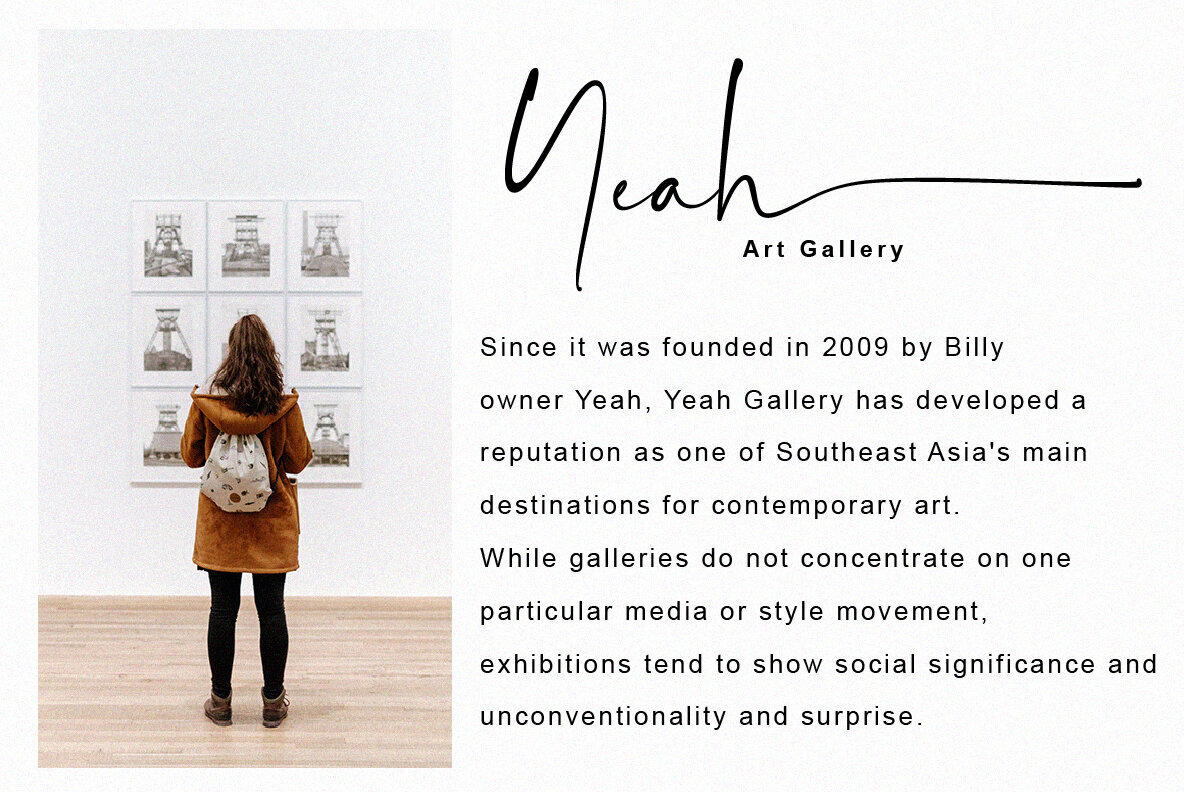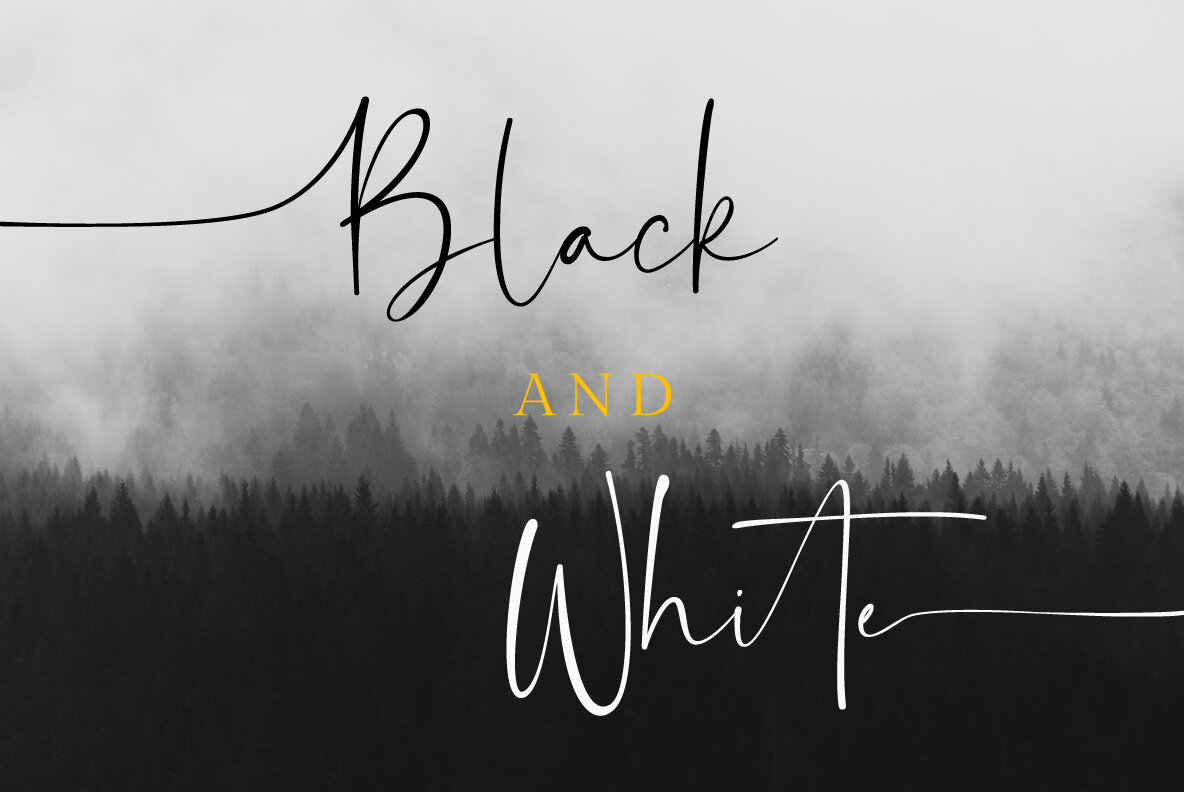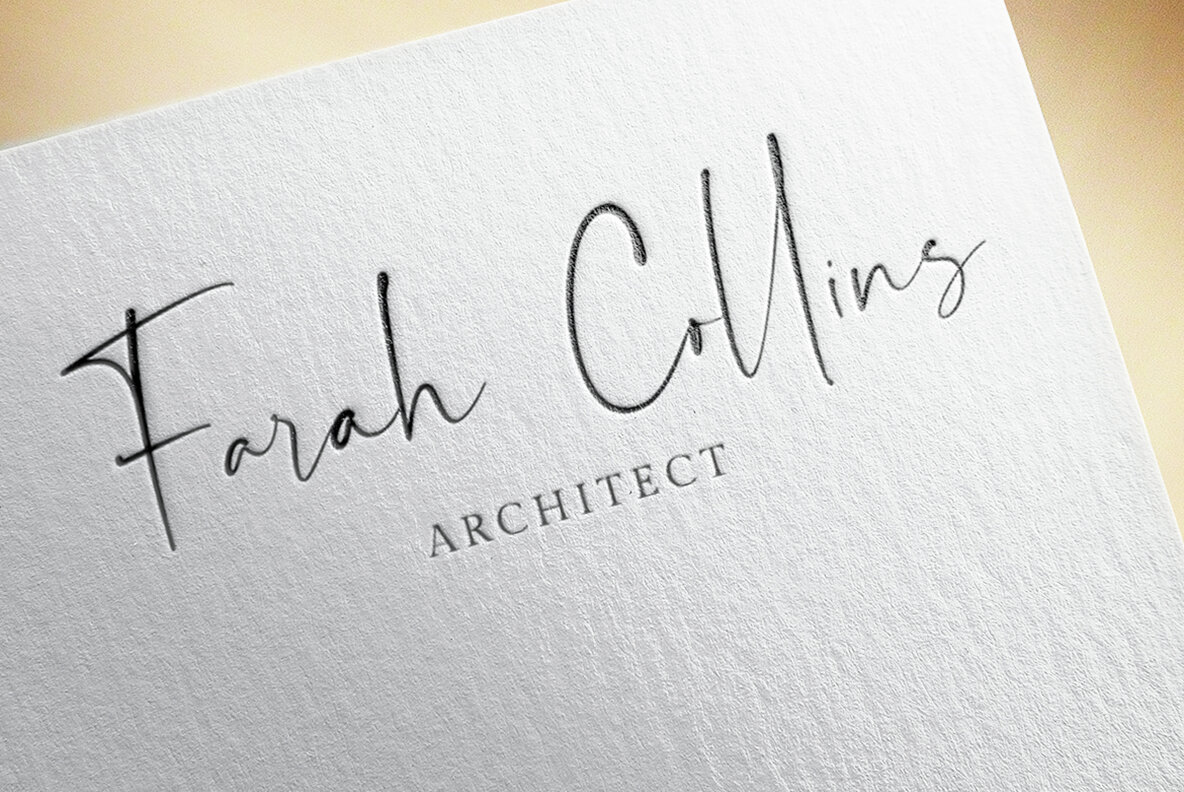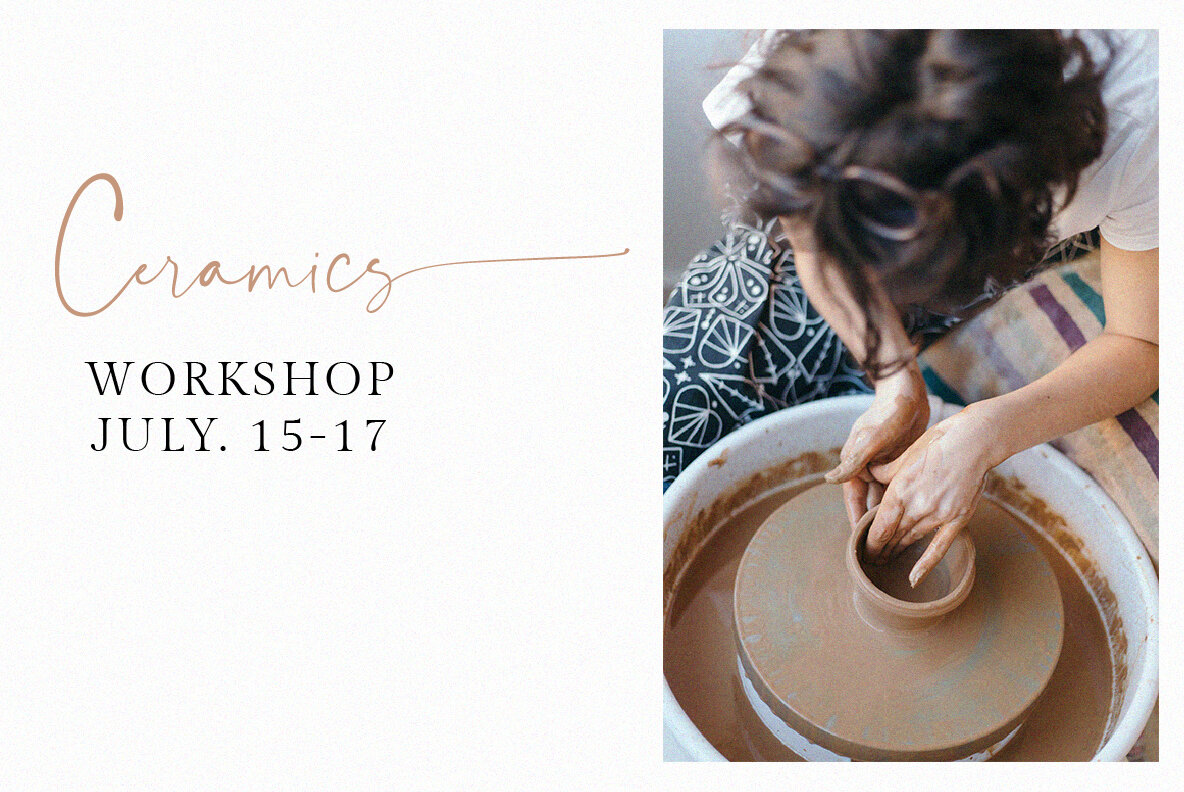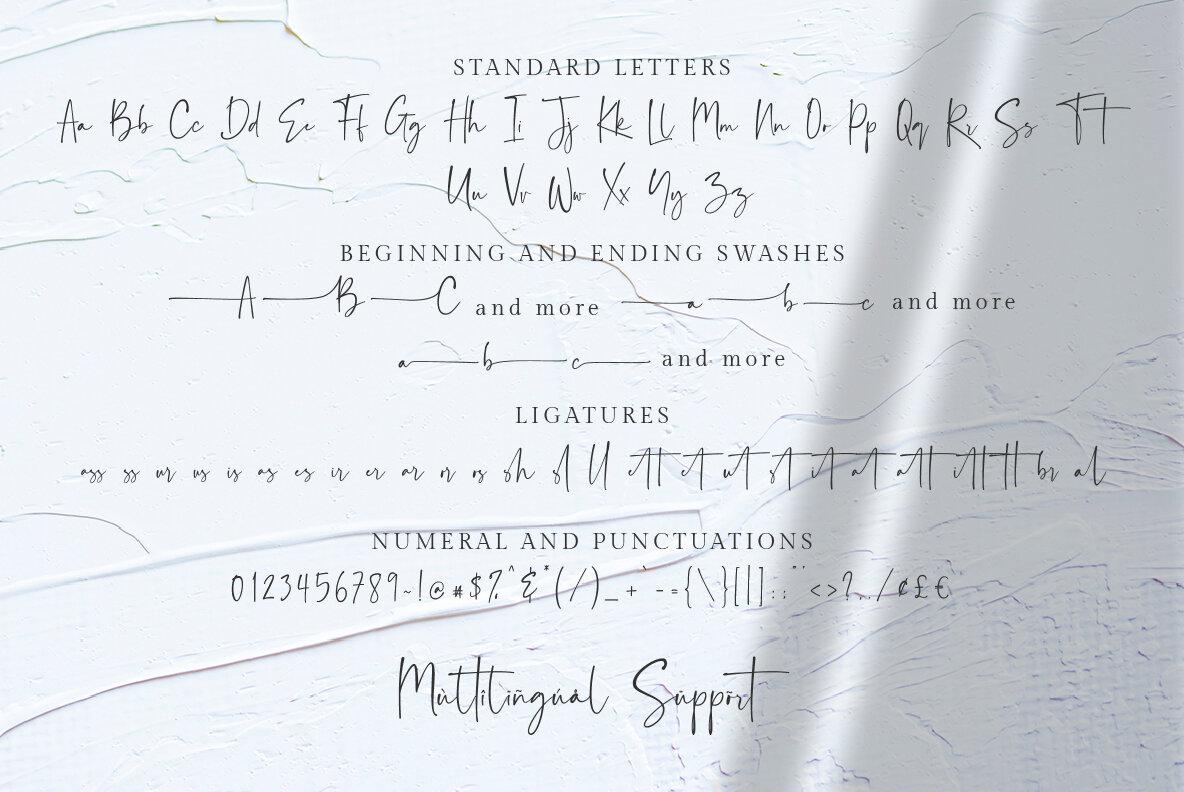
Balnes Font
Balnes Regular
Balnes by Ef Studio is a modern and sophisticated script font designed to create a unique and elegant impression. With its stylish ligatures and a versatile stylistic set, Balnes is ideal for a variety of applications including branding, invitations, watermarks, photography, labels, and movie posters.Balnes: Elegant Script Font for Creative Projects